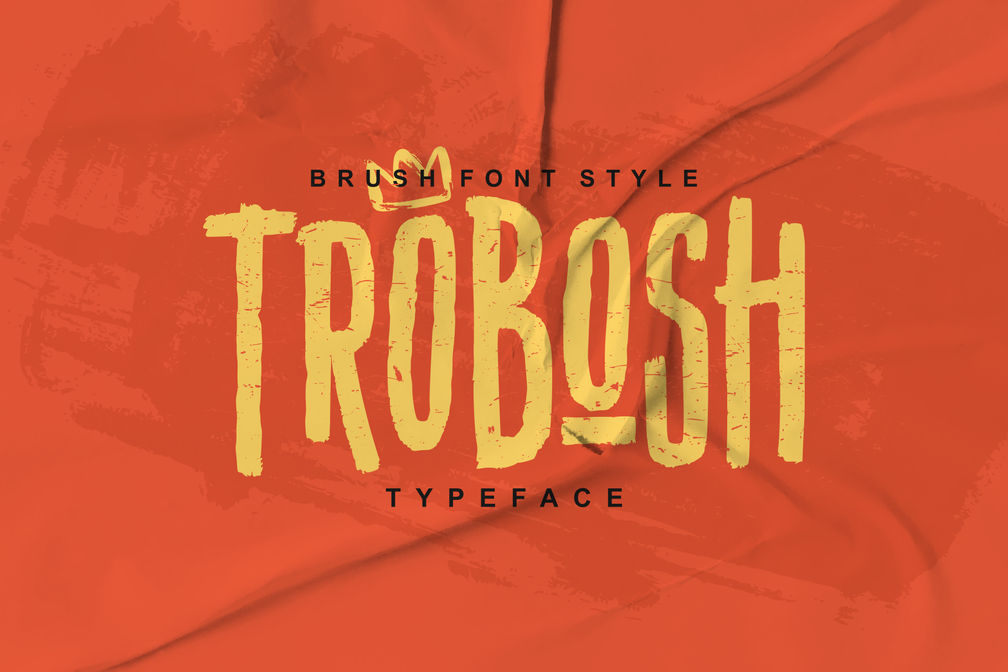
Trobosh Brush
Trobosh Poster 1
A brush font inspired by posters of rock band performances, with the characteristics of a hard paint brush to create a texture that has its own characteristics and is unique. Suitable for branding, social media, logo posters, and others that require a masculine design.